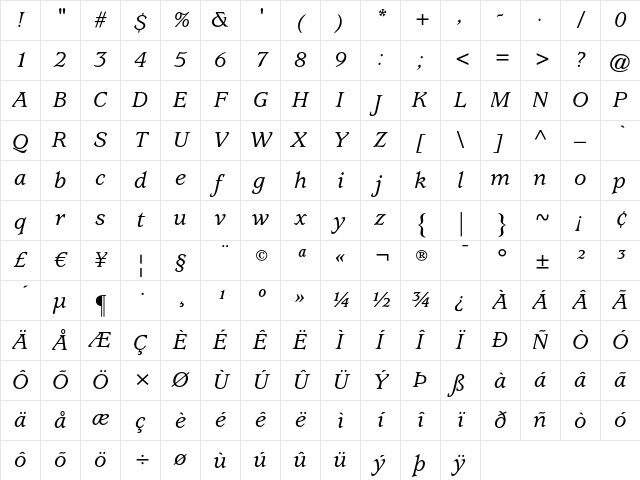
Complete ITC Usherwood LT Medium Italic glyph index. Displaying only characters natively supported by ITC Usherwood LT Medium Italic font.
ITC Usherwood LT echoes the hand-painted signage and woodblock typography of the American frontier, with a warm, rugged personality. The slanted form adds forward momentum and visual energy. Its slender proportions lend an understated elegance to any composition.
Font Pairing: Combine ITC Usherwood LT with a simple slab or neutral sans - period-accurate companions reinforce the vintage feel without competing for attention.
Pro Tip: Use ITC Usherwood LT for short, impactful bursts of text - it shines in poster headlines and product names rather than extended copy.